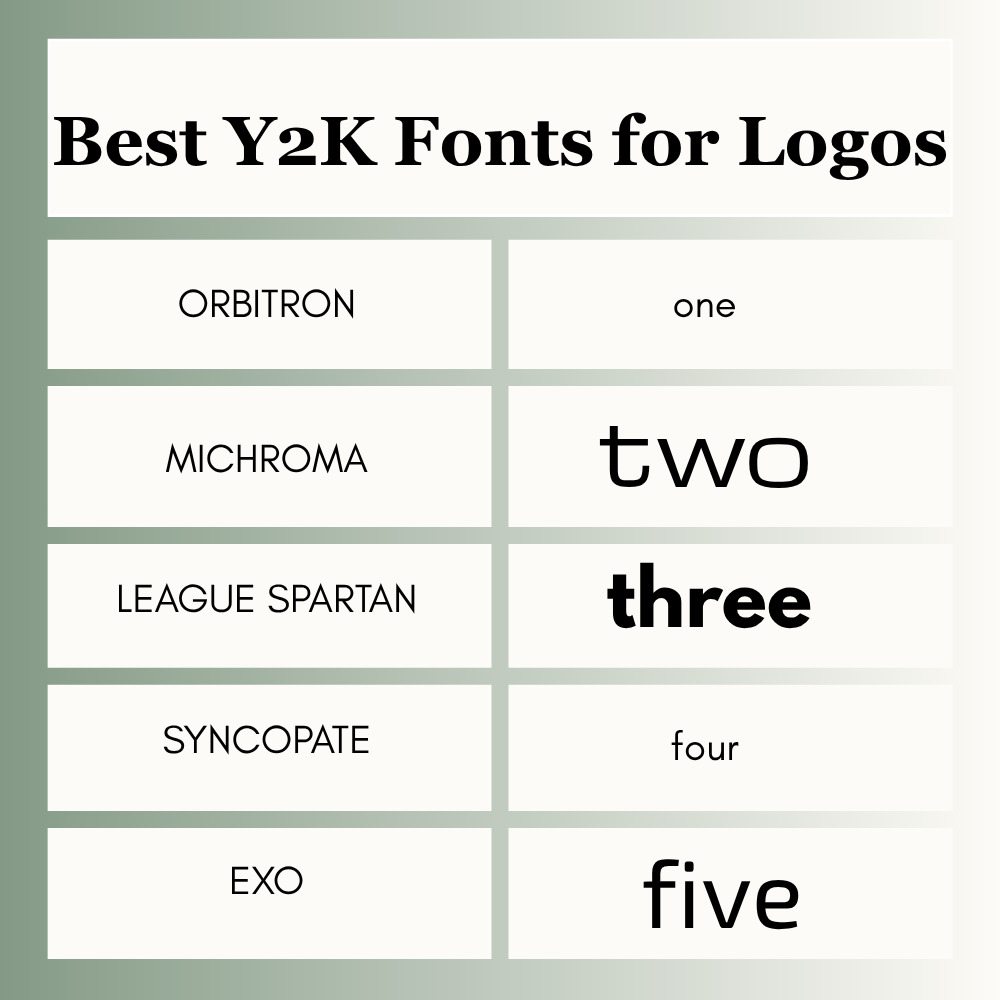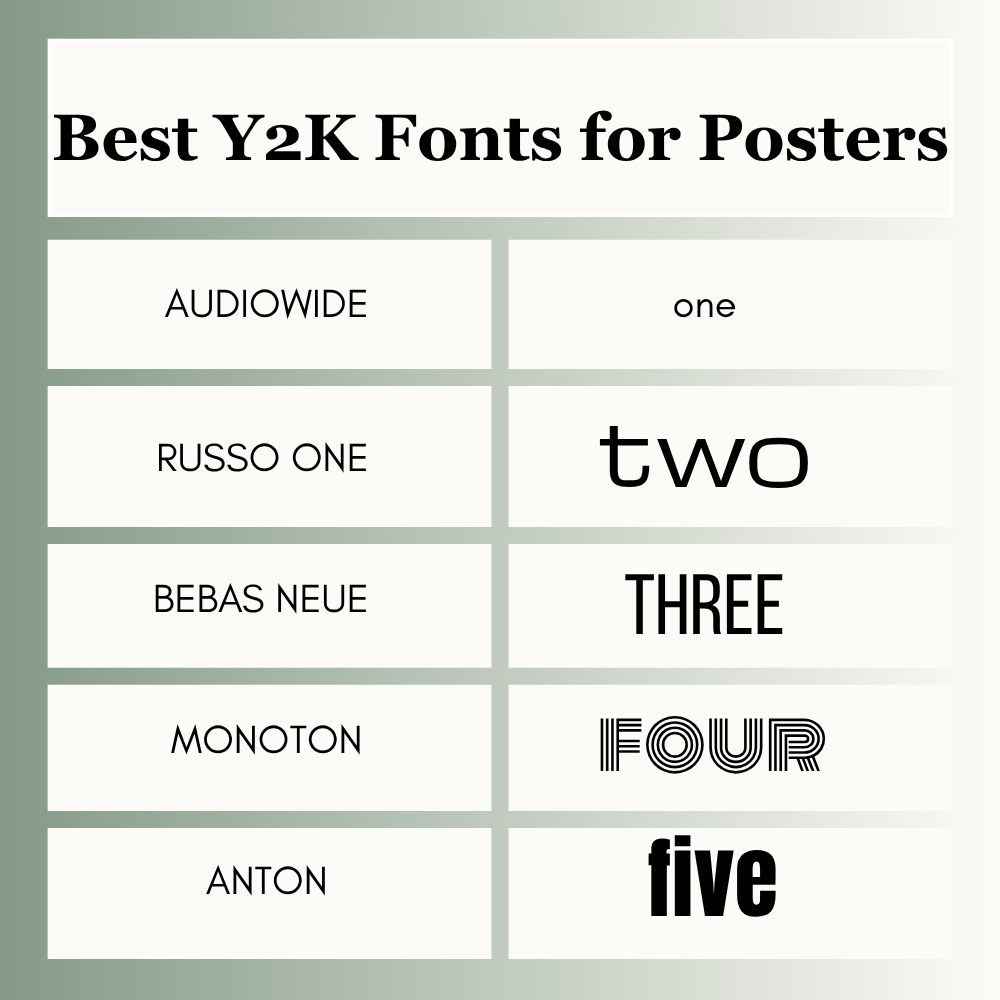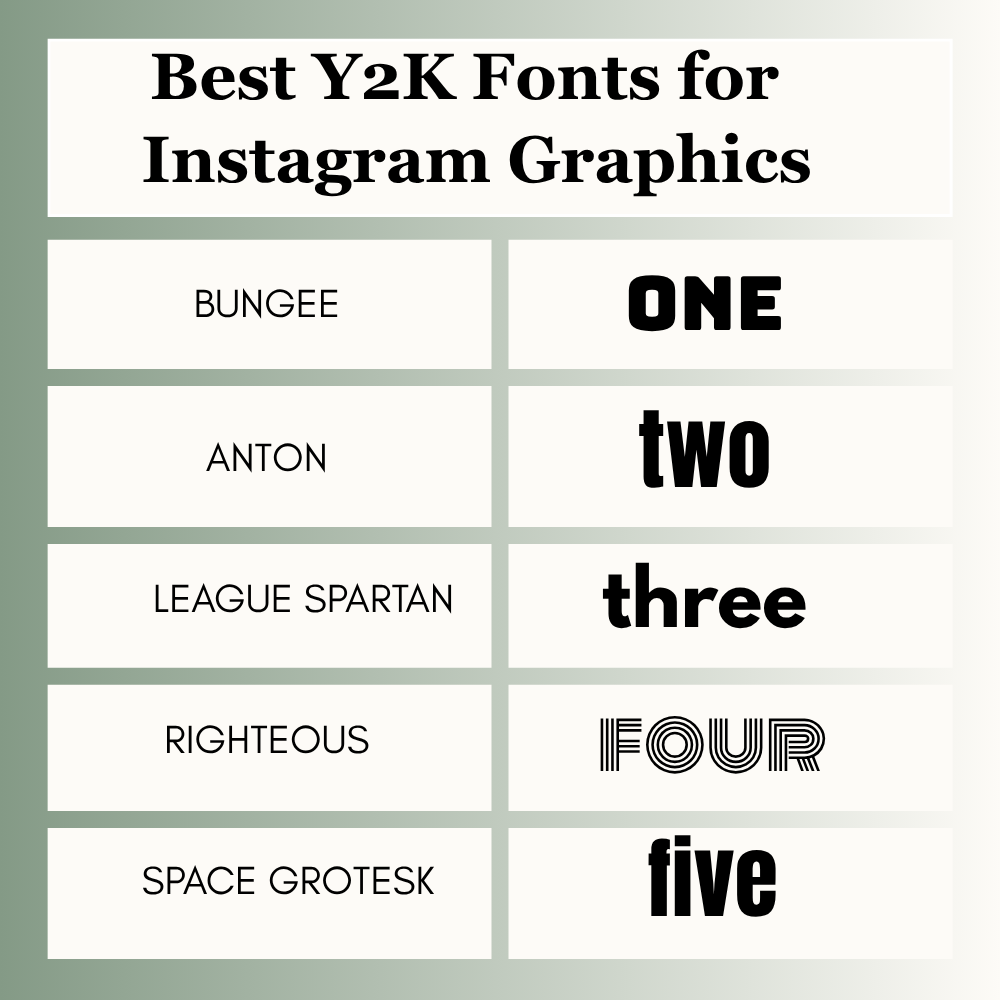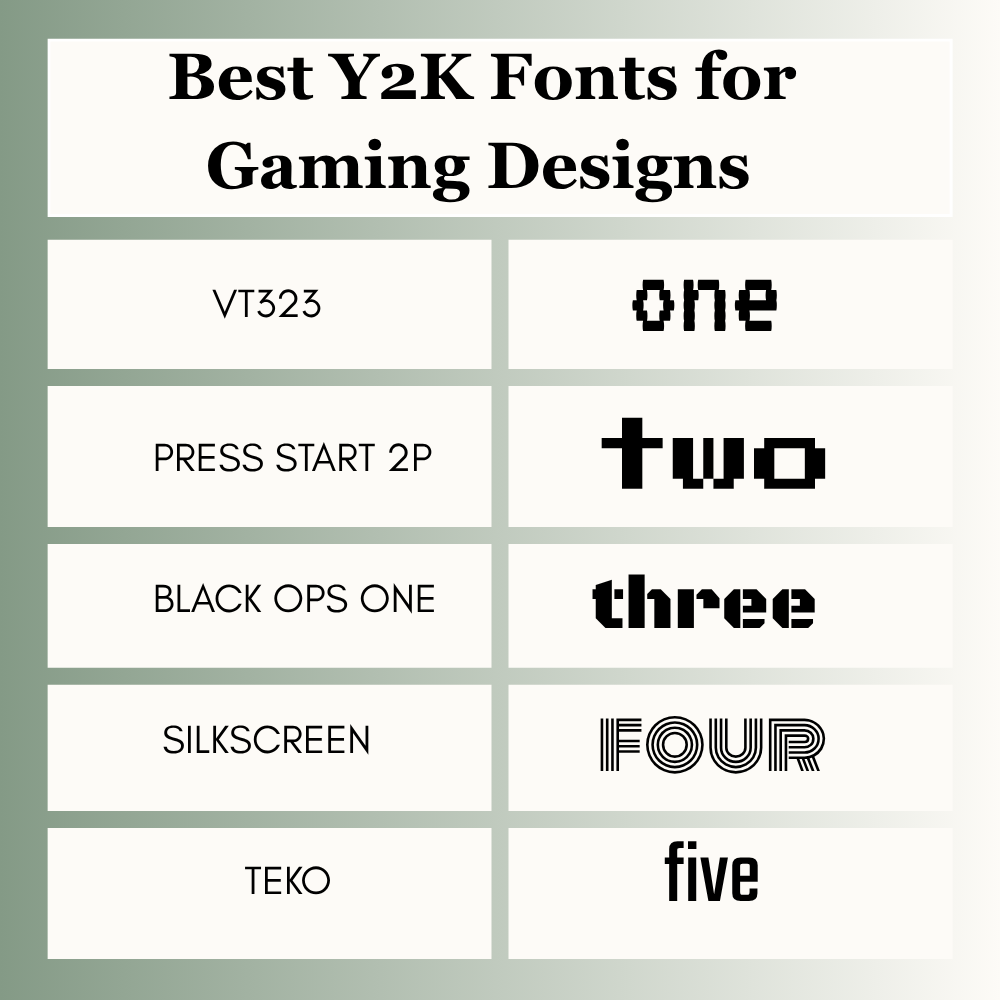
25 Best Y2K Fonts on Canva (Free, Trendy & Easy Picks for 2026)
Trying to find a decent Y2K font in Canva can be a massive headache. You type in “futuristic” or “retro,” and suddenly you’re stuck looking at hundreds of options that look cool in the preview but completely break your layout when you actually try to use them. I got tired of the endless clicking, so I spent hours testing these out in actual projects. In this guide, we’re looking at the 25 absolute best Y2K fonts hiding in Canva’s library. I’ll break down the exact vibe of each font, why it works, and how to use them so your text doesn’t just look trendy, but is also easy to read on a phone screen.
The best Y2K fonts on Canva usually have a bold, futuristic, glossy, playful, or retro-tech look inspired by the late 90s and early 2000s. Popular options include Orbitron, VT323, Audiowide, Russo One, Chakra Petch, Michroma, Bungee, Monoton, Press Start 2P, and League Spartan. These fonts work well for posters, logos, Instagram graphics, gaming thumbnails, event flyers, and nostalgic branding. If you want the strongest Y2K effect, pair the right font with chrome colors, glow, gradients, or layered text effects.
Why People Search for Y2K Fonts on Canva
Finding the right Y2K font sounds easy until you open Canva and scroll through endless options that all start looking the same. Some fonts look amazing in the preview, then feel weak in a real design. Others are stylish but impossible to read on mobile.
I’ve tested fonts for thumbnails, posters, brand creatives, blog graphics, and social media campaigns, and this happens more than most beginners expect. The best font is not always the flashiest one. It is the one that fits the design goal and still grabs attention fast.
That is exactly why this guide focuses on Canva fonts that look good and work in real projects.
What Are Y2K Fonts?
Y2K fonts are typography styles inspired by the late 1990s and early 2000s digital era. This was the time of arcade games, glossy magazine covers, flip phones, CD covers, old web graphics, and futuristic tech branding.
They often feel:
- Futuristic
- Bold
- Rounded
- Metallic
- Pixelated
- Playful
- Cyber-inspired
- Nostalgic
Think old PlayStation menus, MSN Messenger vibes, early internet banners, and pop culture graphics from the 2000s.
Why Y2K Fonts Are Trending Again
Design trends repeat. Right now, nostalgia performs well because it feels familiar, emotional, and visually fresh at the same time.
Y2K fonts are popular for:
- Instagram posts
- TikTok covers
- YouTube thumbnails
- Clothing brands
- Event promotions
- Gaming pages
- Beauty packaging
- Music visuals
- Etsy products
They stand out quickly in fast-scrolling feeds.
25 Best Y2K Fonts on Canva
| Font Name | Best For | Style | Why It Works |
| Orbitron | Logos, Tech Brands | Futuristic | Clean sci-fi look with strong readability |
| VT323 | Gaming Graphics | Pixel | Retro screen vibe and instant nostalgia |
| Audiowide | Posters | Tech Bold | Stylish and attention grabbing |
| Russo One | Headlines | Heavy Bold | Strong presence and easy to read |
| Chakra Petch | Tech Designs | Sharp Modern | Unique futuristic edges |
| Michroma | Premium Logos | Space-Tech | Sleek and polished feel |
| Bungee | Social Posts | Loud Bold | Great for bold statements |
| Monoton | Titles | Neon Retro | Perfect for glow effects |
| Press Start 2P | Arcade Designs | Pixel Retro | Authentic gaming energy |
| League Spartan | Branding | Bold Clean | Flexible and professional |
| Bebas Neue | Posters | Tall Bold | High visual impact |
| Anton | Thumbnails | Heavy Bold | Excellent mobile readability |
| Exo | Startup Graphics | Modern Futuristic | Clean and balanced |
| Teko | Sports Designs | Condensed Bold | Strong energetic look |
| Righteous | Fun Branding | Rounded Retro | Friendly and playful |
| Syncopate | Luxury Tech | Sharp Clean | Premium futuristic style |
| Rajdhani | UI Graphics | Digital | Smart modern appearance |
| Squada One | Streetwear | Bold Urban | Youthful and strong |
| Black Ops One | Gaming Banners | Action | Powerful aggressive feel |
| Rubik Mono One | Titles | Geometric | Distinctive character |
| Archivo Black | Ads | Heavy Bold | Strong conversion visuals |
| Space Grotesk | Social Media | Modern Trendy | Clean with personality |
| Silkscreen | Pixel Art | Tiny Pixel | Real retro web vibe |
| Unica One | Minimal Posters | Thin Futuristic | Elegant and sleek |
| Bangers | Fun Graphics | Comic Energy | Loud and playful style |
Choose one strong font, keep the layout clean, and focus on readability. That usually performs better than chasing every trend.